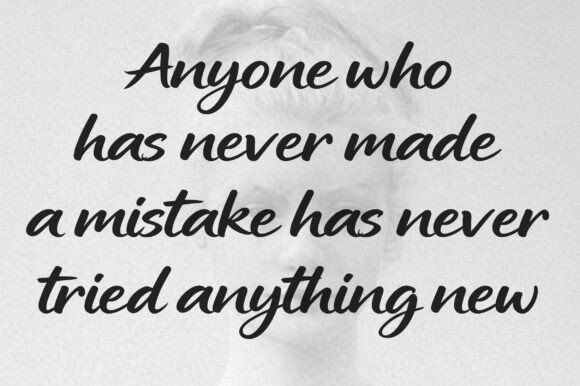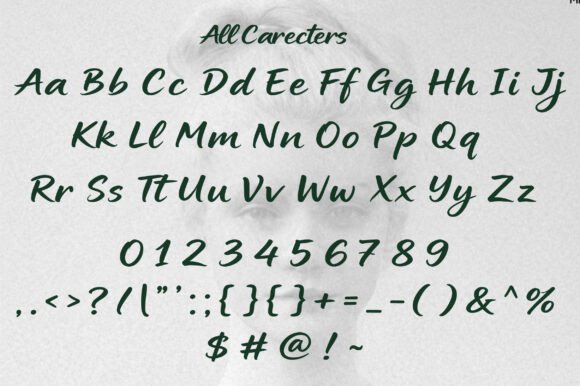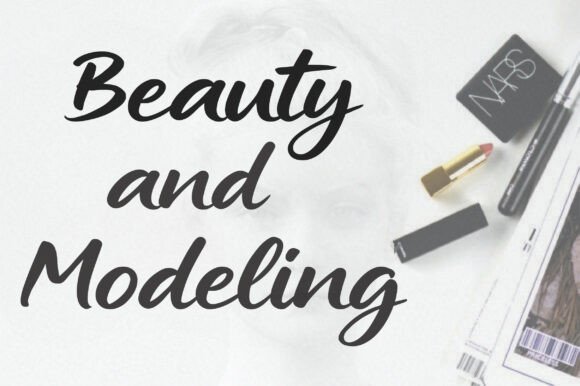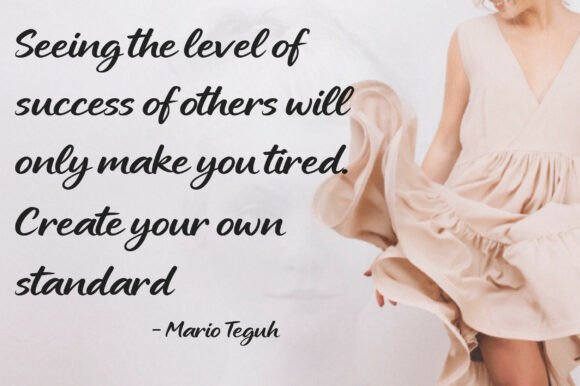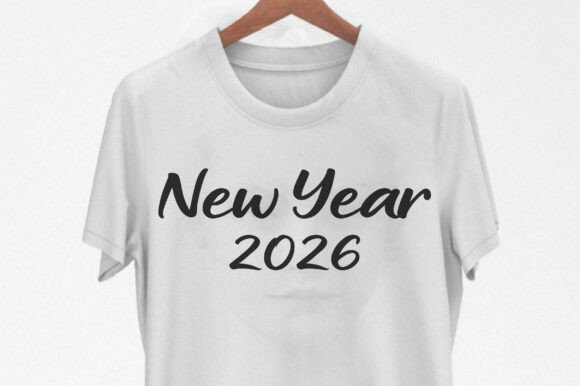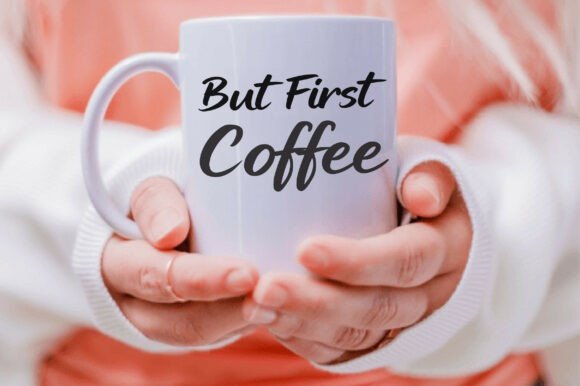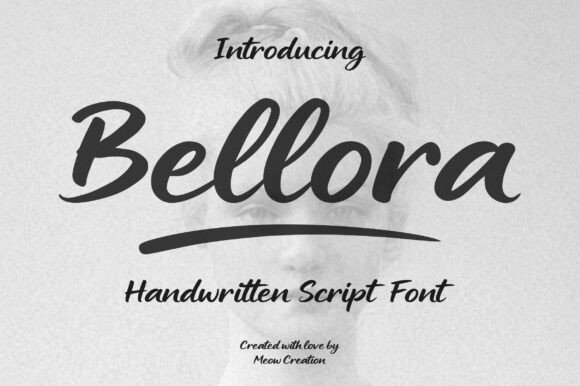
Bellora Font: Elevate Your Designs with Elegant Handwritten Style
Are you looking for a font that adds a touch of elegance and personality to your designs? Look no further than Bellora, a beautiful handwritten script font that brings a refined, modern feel to any creative project. With its smooth curves, organic strokes, and balanced letterforms, Bellora is perfect for designers and crafters seeking to add a warm, expressive touch to their work.
The Characteristics of Bellora Font
Bellora is a carefully crafted handwritten script font that boasts smooth curves and an elegant, modern touch. Its organic strokes and balanced letterforms create a warm, expressive feel that is both clean and readable. This unique combination of characteristics makes Bellora an ideal choice for a wide range of design applications, from branding and logos to quotes, social media, invitations, packaging, and creative projects.
Perfect for Branding and Logos
When it comes to branding and logos, the font you choose can make all the difference. Bellora’s elegant, handwritten style adds a touch of sophistication and personality to any brand, making it perfect for businesses seeking to establish a unique identity. Its clean and readable design ensures that your message is conveyed clearly, while its expressive feel adds a touch of warmth and approachability.
Ideal for Quotes and Social Media
Bellora is also an excellent choice for quotes and social media posts. Its smooth curves and balanced letterforms make it easy to read, even at smaller font sizes, while its elegant style adds a touch of sophistication to any message. Whether you’re creating inspirational quotes, sharing news, or promoting your brand, Bellora is the perfect font to help you connect with your audience.
Beautiful for Invitations and Packaging
For crafters and designers specializing in invitations and packaging, Bellora is a dream come true. Its elegant, handwritten style adds a touch of warmth and personality to any design, making it perfect for wedding invitations, birthday cards, and product packaging. Its clean and readable design ensures that your message is conveyed clearly, while its expressive feel adds a touch of sophistication.
Designed for Digital and Print Use
One of the best things about Bellora is its versatility. Designed to work beautifully for both digital and print use, this font is perfect for designers and crafters who need to create a cohesive brand identity across multiple platforms. Whether you’re creating a website, social media graphics, or print materials, Bellora is the perfect choice.
Why Choose Bellora Font?
So why choose Bellora font for your next design project? Here are just a few reasons:
- Elegant, handwritten style: Bellora’s smooth curves and balanced letterforms create a warm, expressive feel that’s perfect for adding personality to your designs.
- Clean and readable: Despite its elegant style, Bellora is clean and readable, making it perfect for use in a wide range of design applications.
- Versatile: Bellora works beautifully for both digital and print use, making it perfect for designers and crafters who need to create a cohesive brand identity across multiple platforms.
- Easy to use: Bellora is a straightforward font to use, even for designers and crafters who are new to working with script fonts.
In conclusion, Bellora font is a beautiful, elegant handwritten script font that’s perfect for designers and crafters seeking to add a touch of sophistication and personality to their designs. With its smooth curves, organic strokes, and balanced letterforms, Bellora is ideal for use in a wide range of design applications, from branding and logos to quotes, social media, invitations, packaging, and creative projects. Its clean and readable design, combined with its elegant style, make it the perfect choice for anyone looking to elevate their designs and connect with their audience.